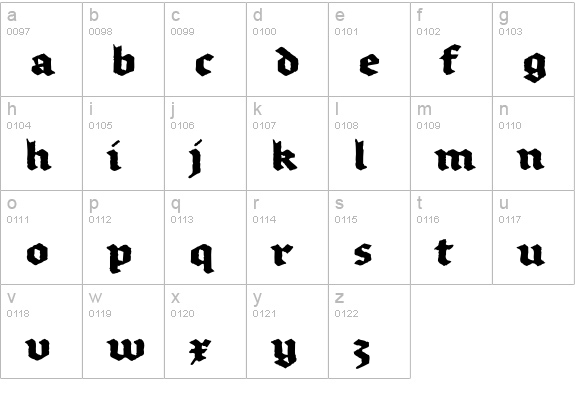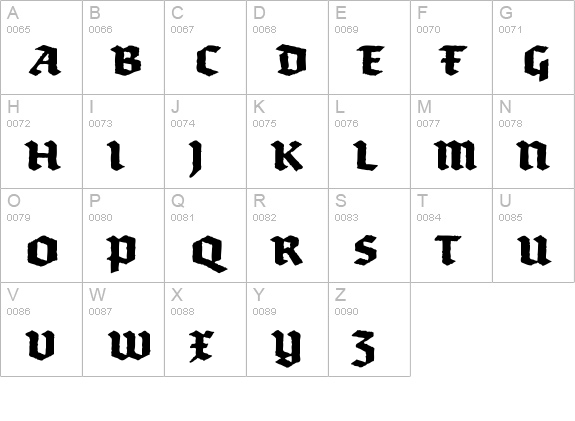
Brokenscript-BoldRough Font Details
Brokenscript-BoldRough is a unique and edgy font that exudes raw energy and boldness. Its rough and rugged appearance gives it a distinct character that is perfect for making a statement in your designs. This font is perfect for projects that require a strong and daring look, such as posters, logos, and marketing materials. The best part about Brokenscript-BoldRough is that it is completely free to download at FontsMarket.com. You can easily add this striking font to your collection without any cost, allowing you to unleash your creativity without any limitations. Don't miss out on the opportunity to enhance your designs with the powerful presence of Brokenscript-BoldRough - download it today and make a bold statement with your typography!